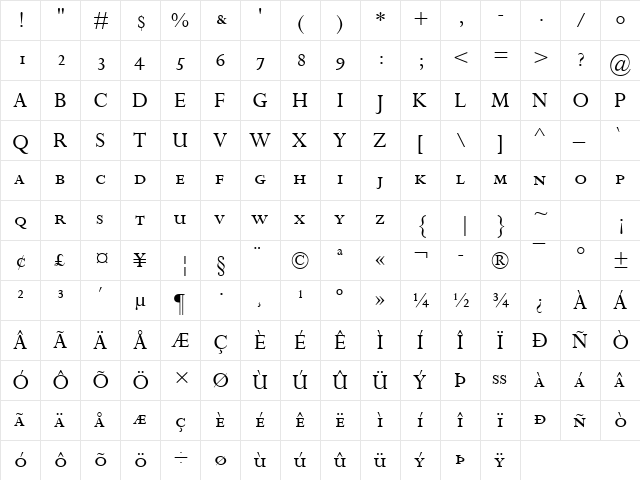
Perpetua SC Regular Font Preview
Perpetua SC Regular
Perpetua SC Regular Font Details
| Foundry | Agfa Monotype Corporation |
Design Context for Perpetua SC Typeface
Perpetua SC offers clean, dependable letterforms without strong stylistic allegiance, making it a practical choice for designers who need flexibility.